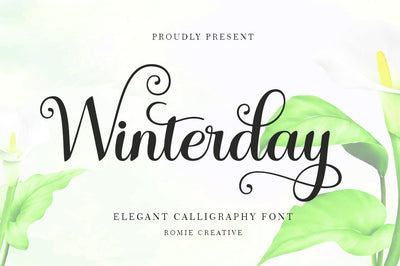
Winterday - Elegant Calligraphy font
Winterday Elegant Calligraphy font that comes with exquisite character changes, a kind of classic decorative copper script with a modern twist, designed with high detail for an elegant style.
Winterday Elegant Calligraphy font attractive because it is subtle, clean, feminine, sensual, glamorous, simple and very readable, because it has many fancy letter joints. I also offer a number of decent stylistic alternatives for multiple letters. Classic styles are very suitable to be applied in various formal forms such as invitations, labels, restaurant menus, logos, fashion, make up, stationery, novels, magazines, books, greeting / wedding cards, packaging, labels or all kinds of advertising purposes. . . .